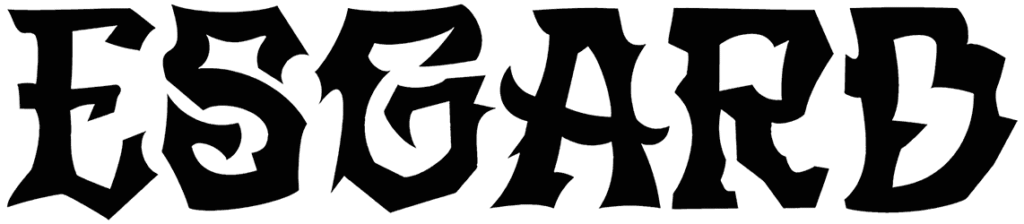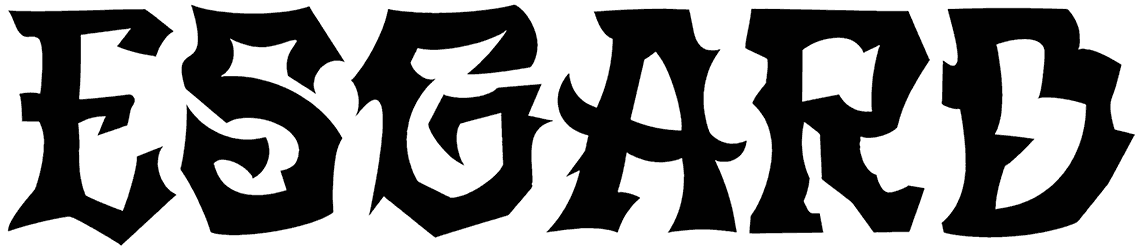
Esgard Font
Create an artistic layout with this urban and contemporary item and be impressive. As a graffiti font with a street art style, Esgard can be a cool display for your creative designs. Having two weights can cover the lack of numbers and give you a chance to decorate a lot of projects, from posters to illustrations, with this unique option.